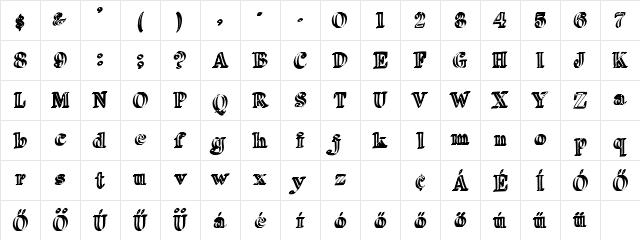
Pixie Font Contour HU Normal
Design Context for Pixie Font Contour HU
Pixie Font Contour HU is a composed and adaptable typeface that performs quietly and consistently across a wide range of design contexts.
Pro Tip: Use Pixie Font Contour HU in both headline and body roles to test its range before committing to a single application.